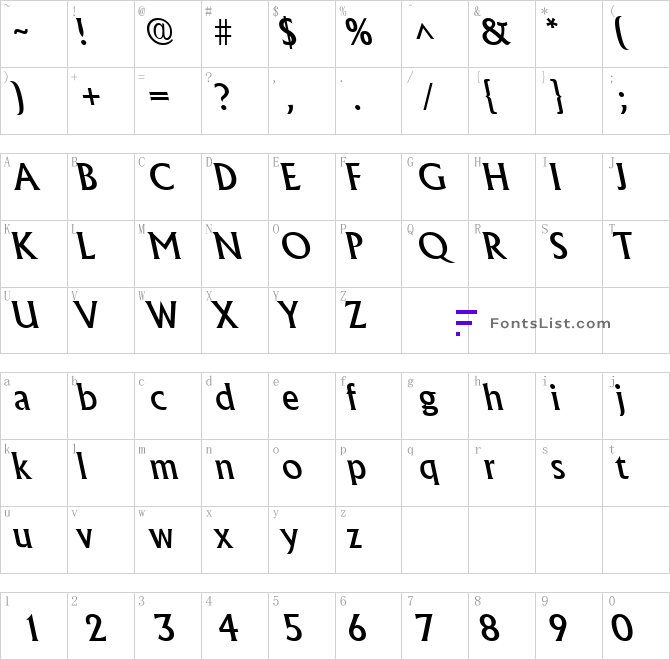
- Font Name:AlbertaBackslant
AlbertaBackslant-Regular.ttf is a very beautiful artistic font, AlbertaBackslant-Regular.ttf is widely used in the design and printing of various books and pictures,AlbertaBackslant-Regular.ttf has a strong visual impact,AlbertaBackslant-Regular.ttf is a commonly used font in newspapers, magazines and books, and is used in posters, e-commerce Poster design, store design, logo design, font design and other fields.AlbertaBackslant-Regular.